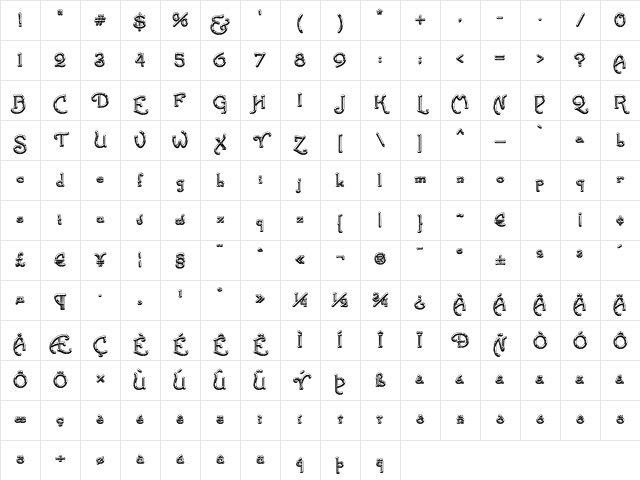
Complete Santa'sSleighFull 'Deluxe' Regular glyph index. Displaying only characters natively supported by Santa'sSleighFull 'Deluxe' Regular font.
Santa'sSleighFull 'Deluxe' is a composed and adaptable typeface that performs quietly and consistently across a wide range of design contexts.